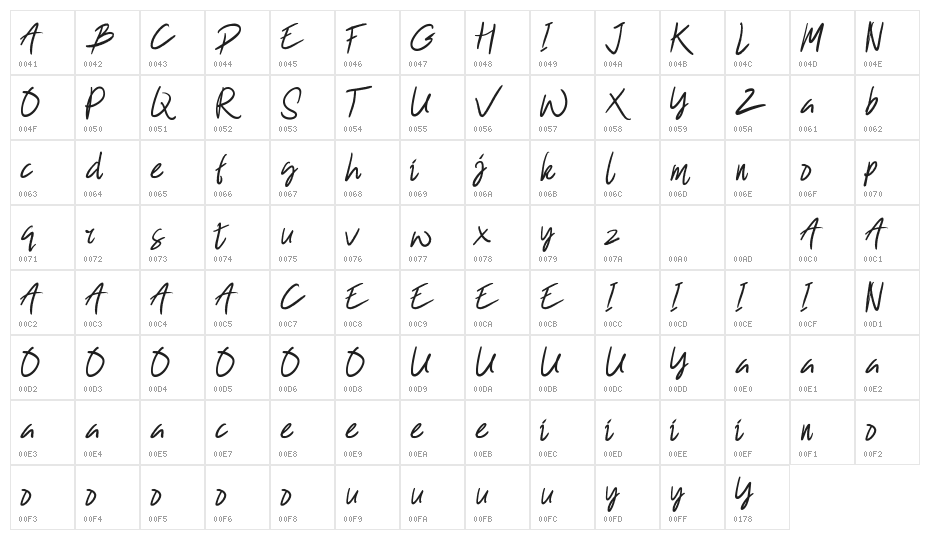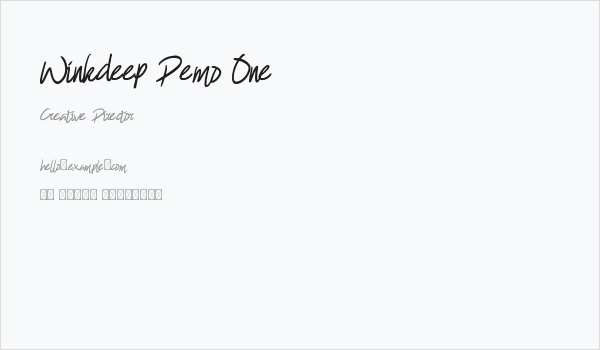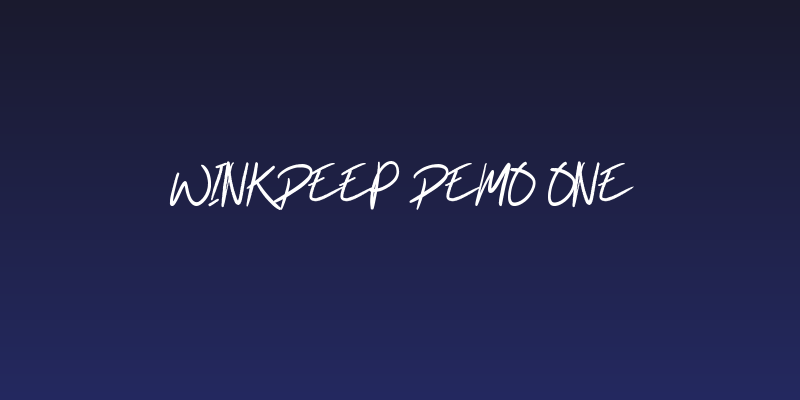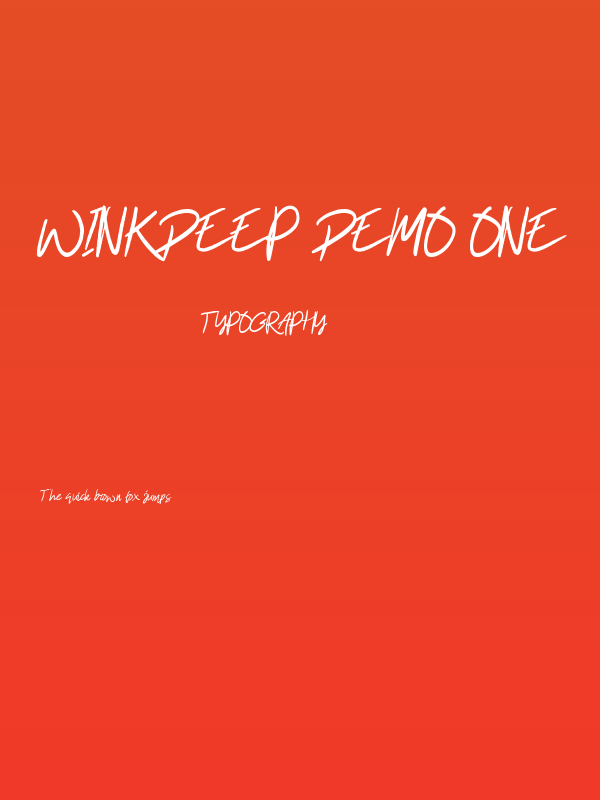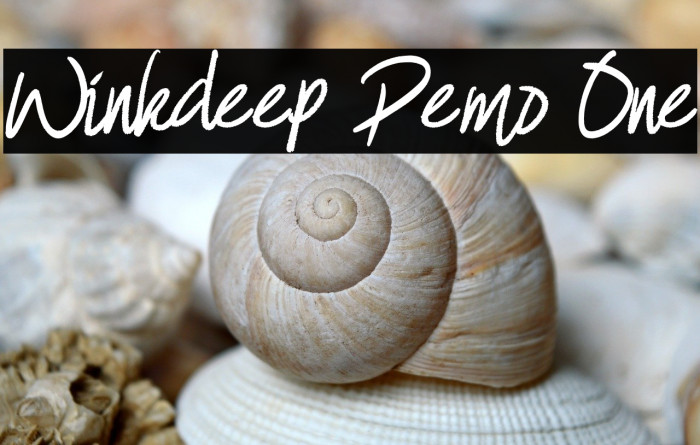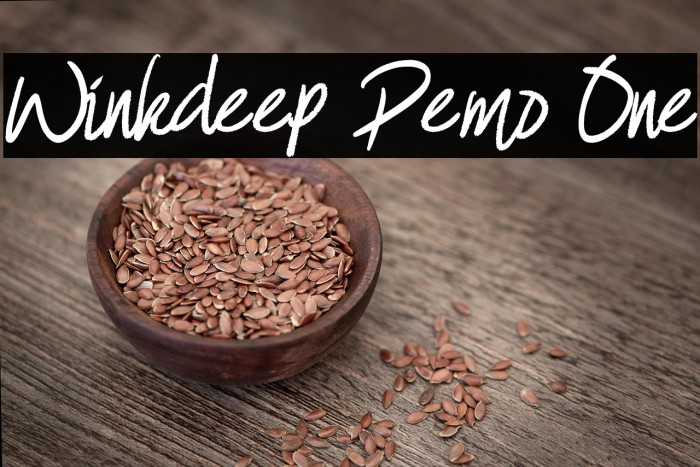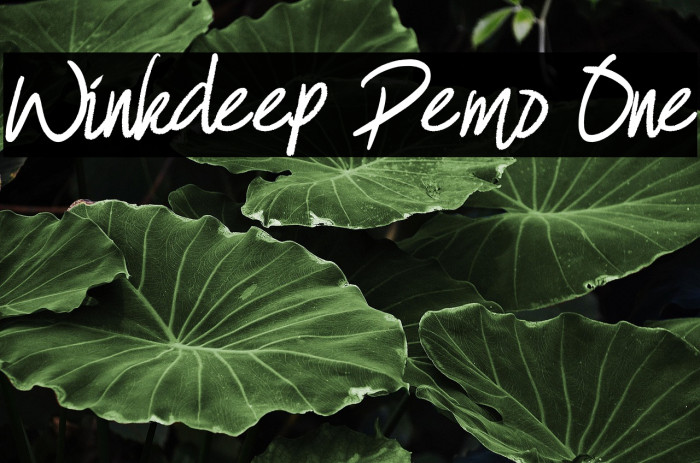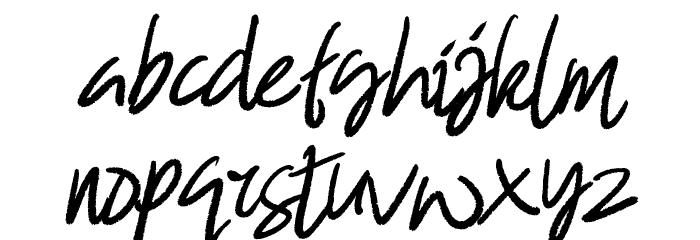
Winkdeep Demo One Font
Winkdeep Demo One Description
This font features a dynamic and expressive handwritten style, characterized by its fluid strokes and natural flow. The uppercase and lowercase letters exhibit a casual yet sophisticated appearance, with varying stroke widths that add a sense of movement and energy. The characters are slightly slanted, enhancing the handwritten feel, and the overall design maintains a consistent rhythm throughout. The absence of special characters and numbers suggests a focus on alphabetic expression, making it ideal for creative and artistic projects. Its unique style can add a personal touch to any design, making it stand out with its authentic and lively appearance.
| Proposed Projects | Ideal for greeting cards, invitations, personal branding, and artistic projects. |